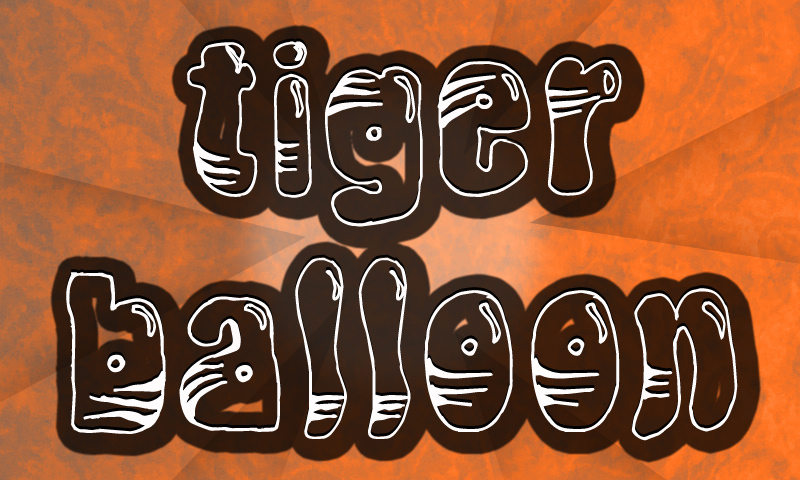
Tiger Balloon by Cloutier Fontes is a free outlined cartoon display font with plump, uneven letters and a lively hand-drawn finish. The rounded forms swell and pinch like soft balloons, and each character takes on a slightly different silhouette. Short striped marks tucked inside the outlines resemble quick pen shading and keep the broad shapes from feeling empty.
Comics and children's entertainment are its clearest territory, especially for storybook covers and playful game graphics. It also suits party invitations and candy packaging. The inflated shapes and scribbled accents speak directly to younger audiences and brands built around humor, treats, or cheerful mischief.
TigerBalloon Regular is a font by CloutierFontes, designed by Steve Cloutier in 2012.